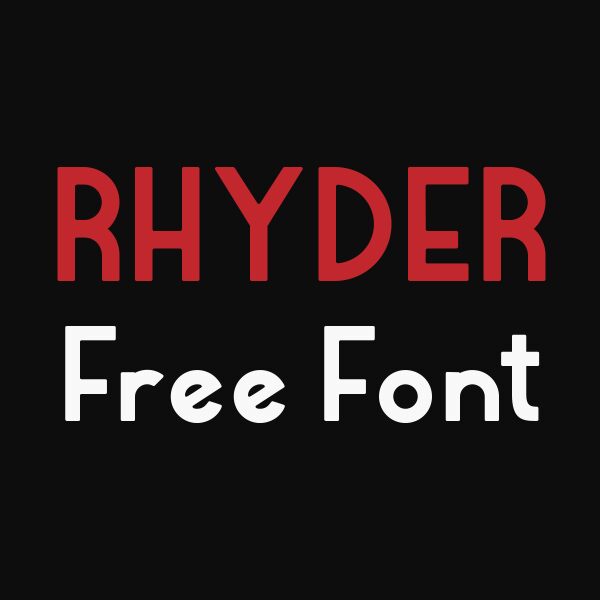
Rhyder by Adrian Candela is a free display sans serif with tall, assertive lettering and an unevenly compact silhouette. Broad curves alternate with very narrow uprights, giving the line a lively change of pace. The cutouts are crisp and economical.
Packaging is a strong setting for its mix of sturdy strokes and quirky proportions, especially on food labels, casual restaurant branding, and merchandise. Posters and event graphics can use the same irregular width pattern as part of a punchy, informal graphic style.